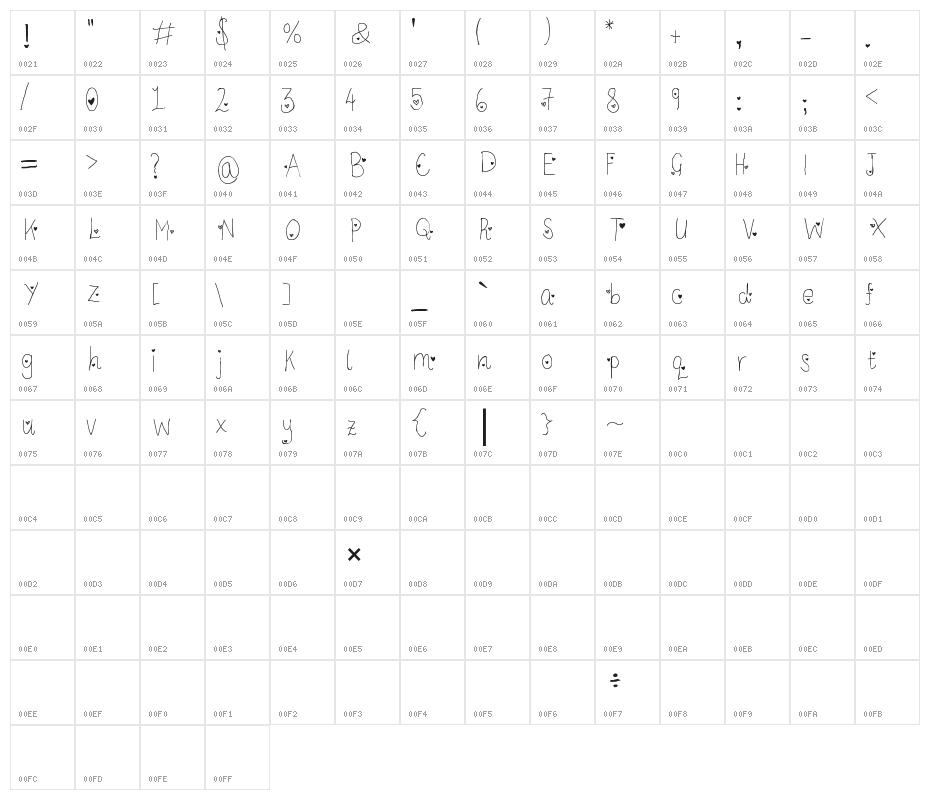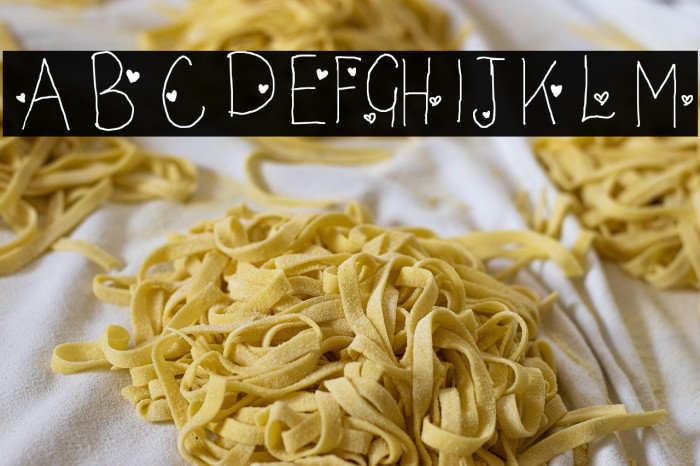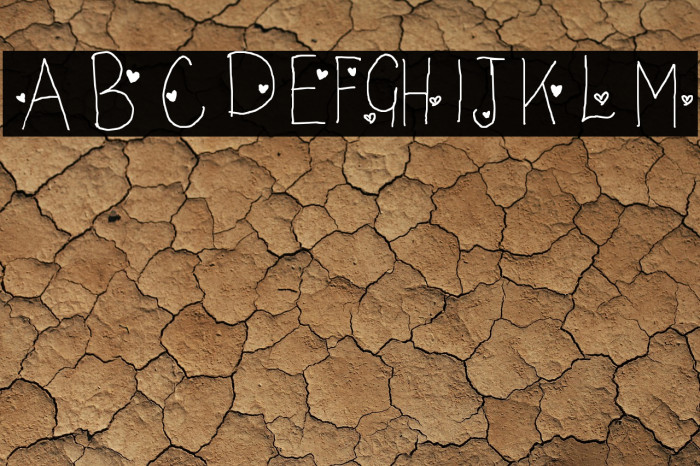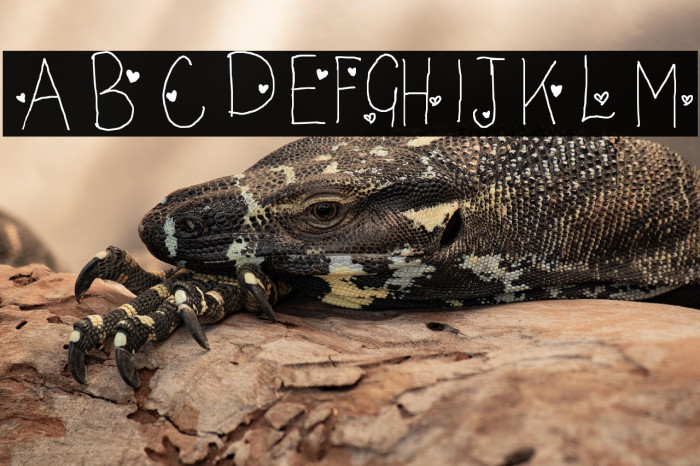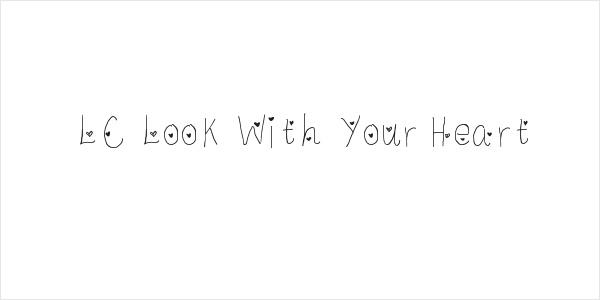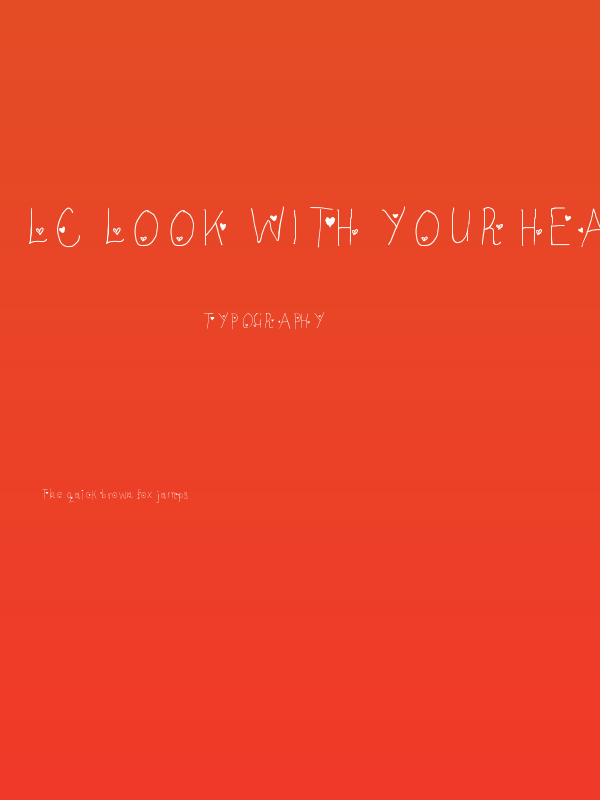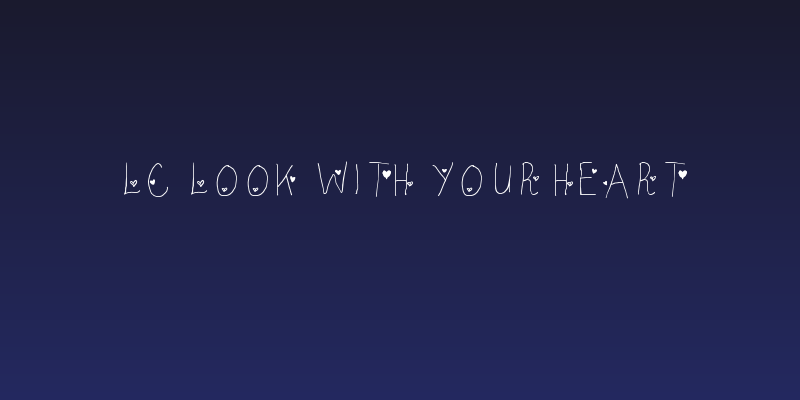
LC Look With Your Heart Font
LC Look With Your Heart Description
This whimsical and playful font features charming heart motifs embedded within each character, adding a touch of romance and fun. The letters are crafted with a hand-drawn aesthetic, giving them an informal and friendly appearance. The strokes are thin and slightly irregular, enhancing the casual feel. The inclusion of hearts makes it particularly suitable for designs that aim to convey love, affection, or a lighthearted tone. The numerals and special characters maintain the same playful style, ensuring consistency across all text elements.
Proposed ProjectsIdeal for Valentine's Day cards, wedding invitations, love-themed posters, and playful branding projects.